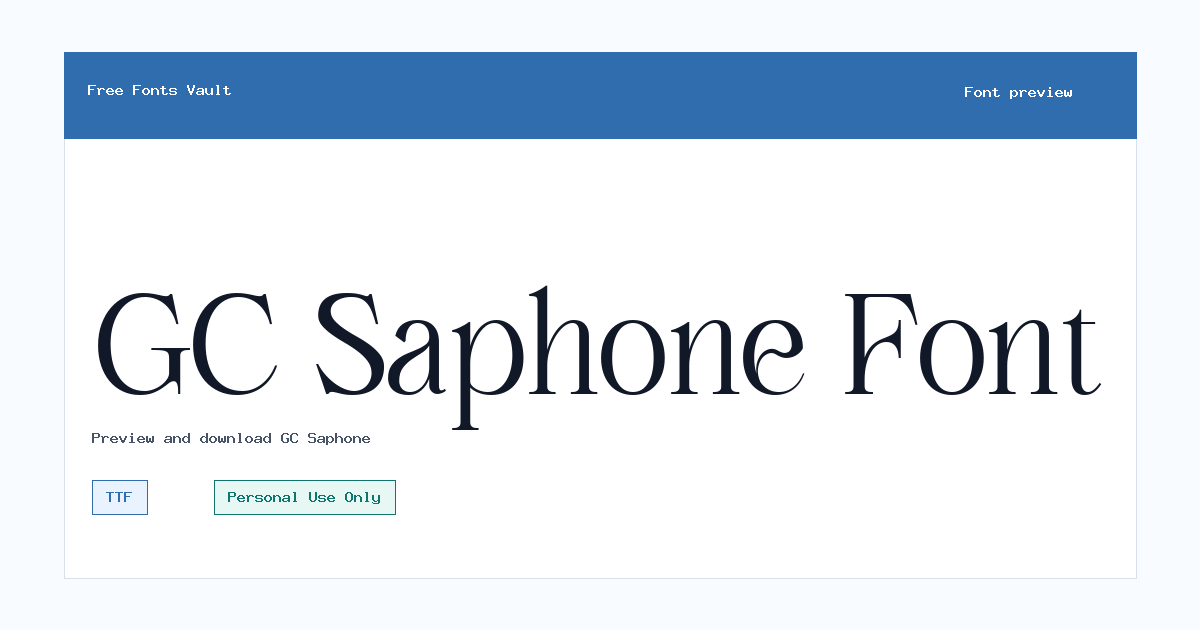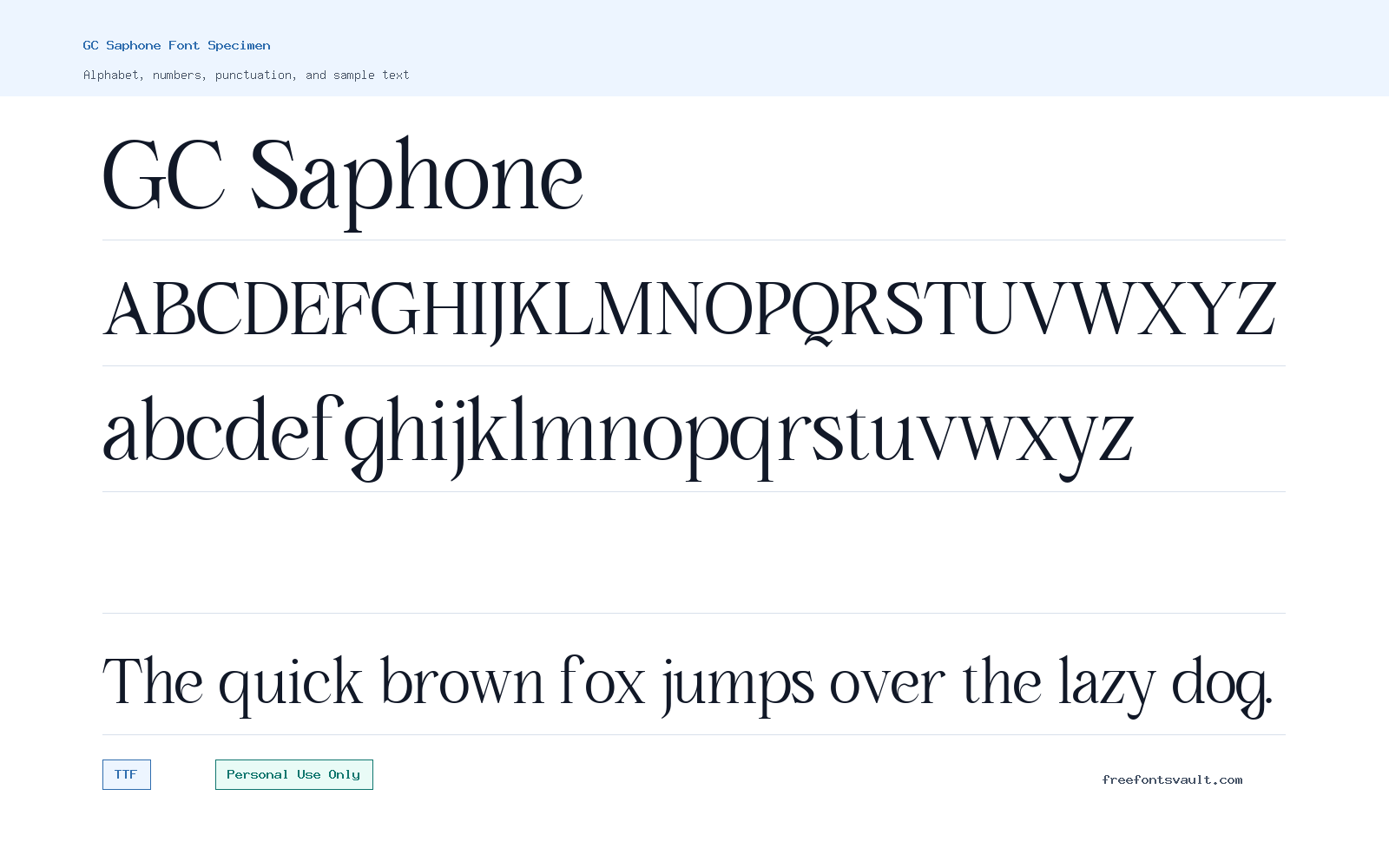
GC Saphone
- Designer Zainaldi Ibrahim of Glyphonic
GC Saphone is presented as a serif typeface, which makes it a better fit for display text, headings, invitations, title treatments, social graphics, and other short pieces of lettering than for long reading sections. Since the available file is marked as a demo, use the preview first to check the shapes, spacing, punctuation, and any characters you need before installing it in a design process.
For visitors comparing fonts, start by testing your exact words in the preview box. Try a name, headline, logo-style phrase, or short quote rather than a full paragraph. Serif fonts can look polished at larger sizes, but they may become less clear when reduced too far, especially in dense mobile layouts or small captions. If you plan to pair GC Saphone with another typeface, keep the second font simple and neutral so the serif details do not compete with another decorative style.
- Serif font style suited to short display text and headline previews
- Personal mockups, invitations, quote graphics, and title previews
- Testing serif lettering for branding drafts, posters, or social media layouts before purchasing or requesting a full license
Who designed GC Saphone?
The font is credited to Zainaldi Ibrahim of Glyphonic.
What kinds of projects suit GC Saphone?
Based on its serif classification and demo status, it is most practical for personal-use title tests, invitations, quote layouts, posters, and display-style mockups.